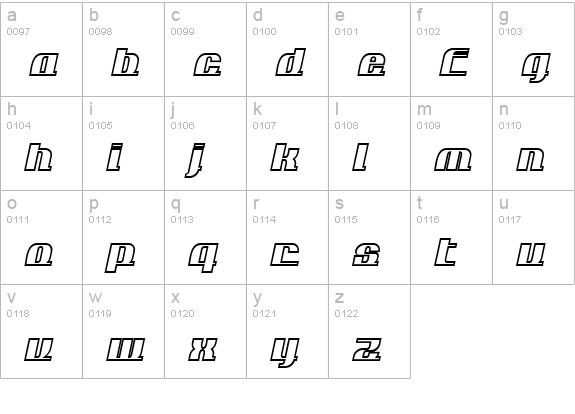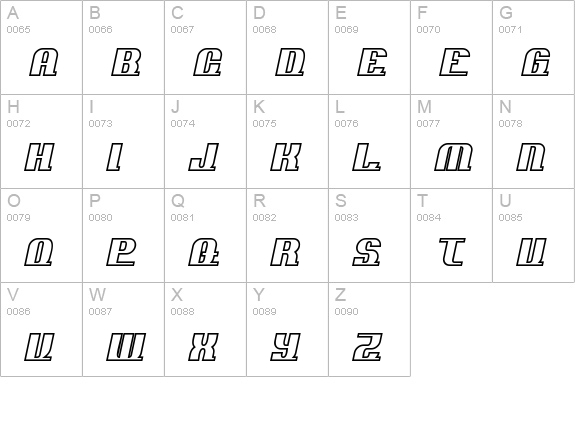
AddLoops Outline Font Details
AddLoops Outline font is a stylish and modern typeface that is sure to catch the eye. With its clean lines and bold appearance, this font is perfect for a variety of design projects, from posters to logos to social media graphics. The outline style gives it a unique and contemporary look that will make your text stand out. This font is not only visually appealing but also highly versatile, making it suitable for both professional and personal use. Whether you're creating a sleek corporate branding or a fun party invitation, AddLoops Outline font has got you covered. Best of all, AddLoops Outline font is completely free to download at FontsMarket.com. So why wait? Add this fantastic font to your collection today and take your designs to the next level!